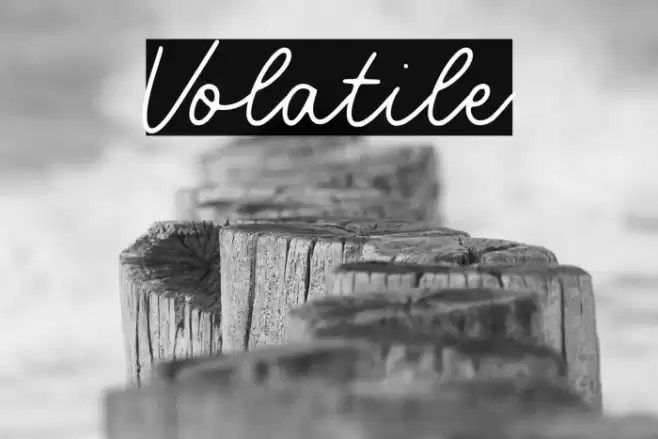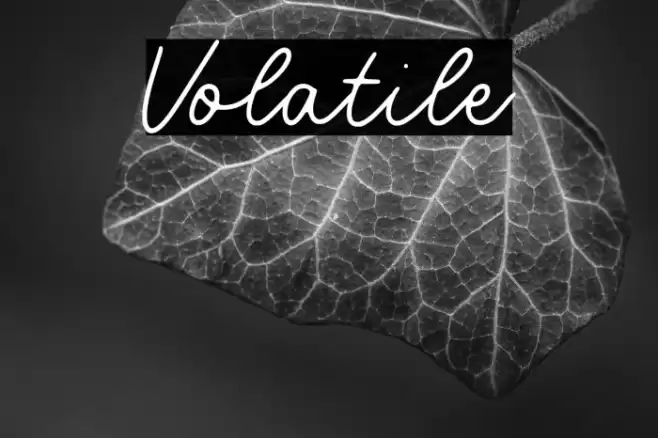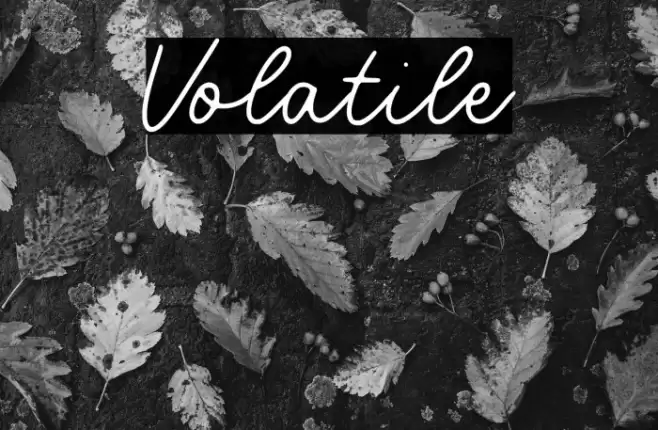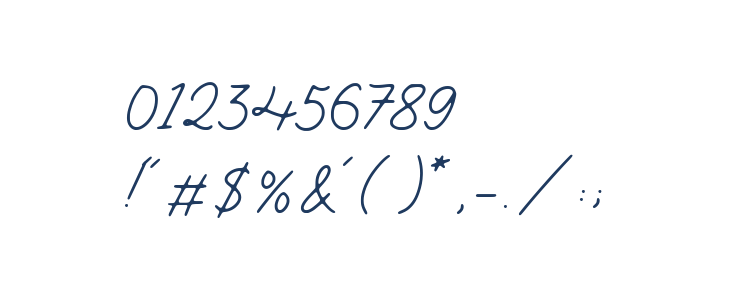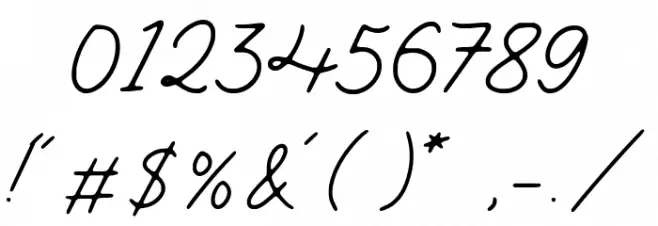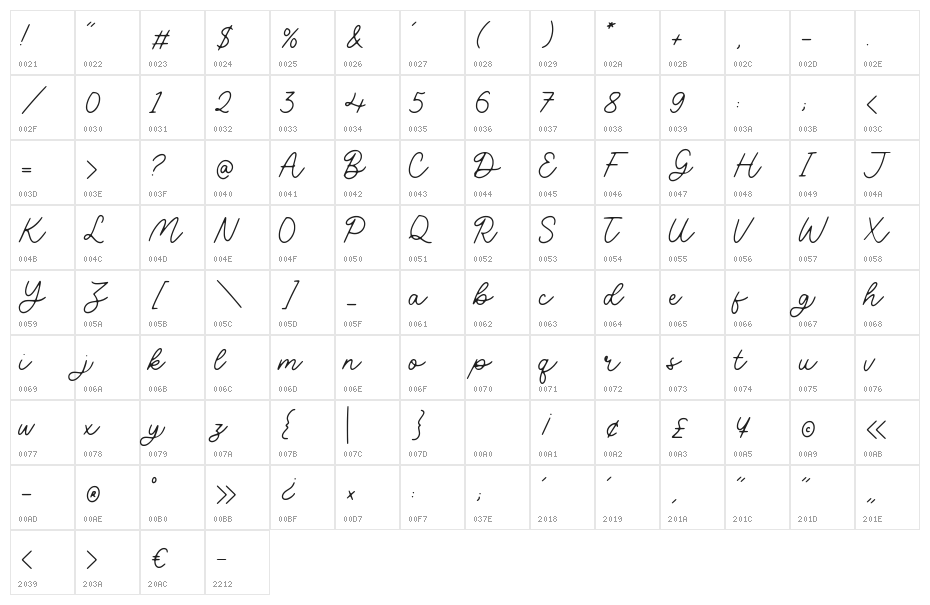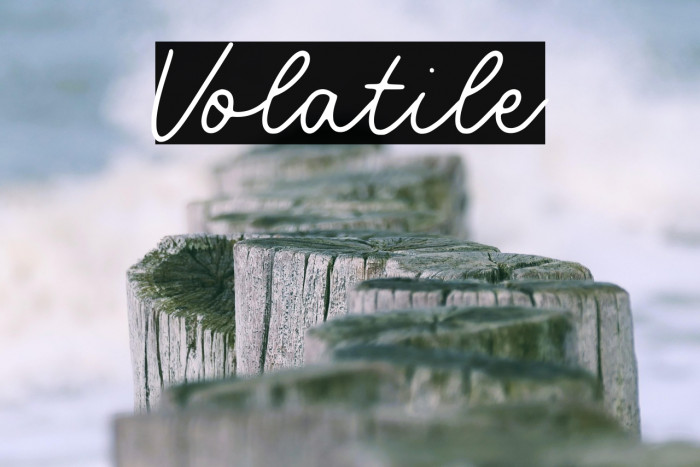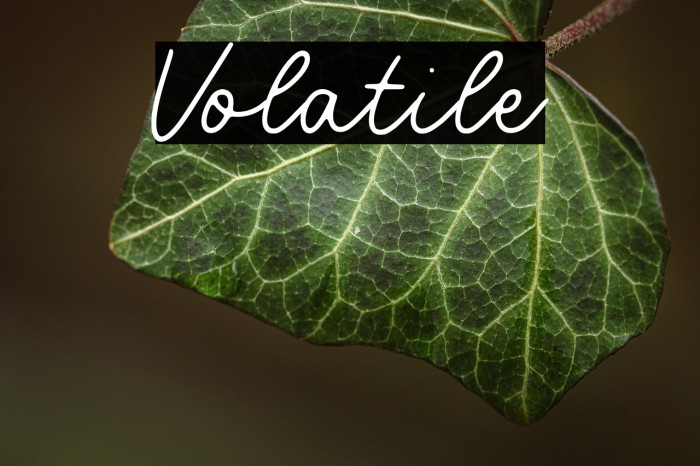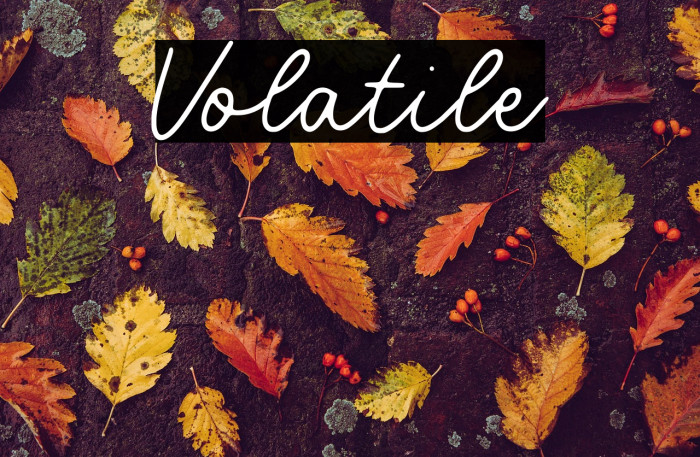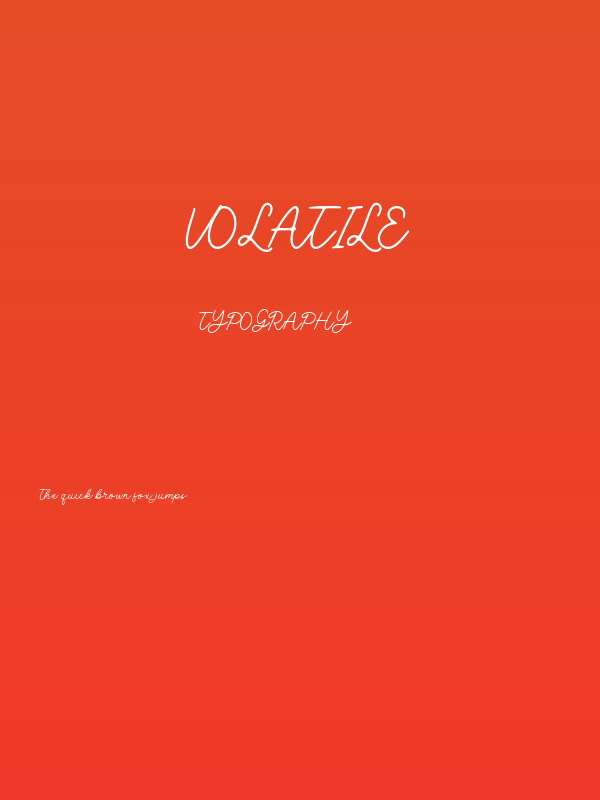
Volatile Font
Volatile Description
This font features a flowing, cursive style that mimics elegant handwriting. The characters are connected, creating a seamless and fluid appearance. The uppercase letters are slightly more elaborate, with graceful loops and curves, while the lowercase letters maintain a consistent and smooth flow. The numbers and special characters are designed to match the overall script style, adding a touch of sophistication. This font exudes a sense of elegance and personal touch, making it ideal for projects that require a handwritten aesthetic.
A cursive, handwritten-style font with elegant, flowing characters from Uncategorized fonts.
- Font: Volatile
- Proposed Projects: Ideal for wedding invitations, greeting cards, personal branding, and elegant packaging designs.
- Overall Style: Elegant, Handwritten
- Use Case: Logos, Invitations, Personal Branding